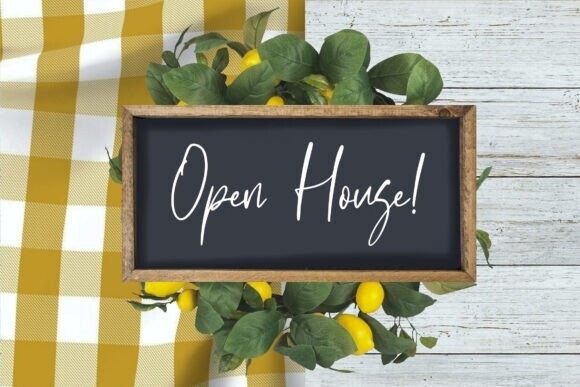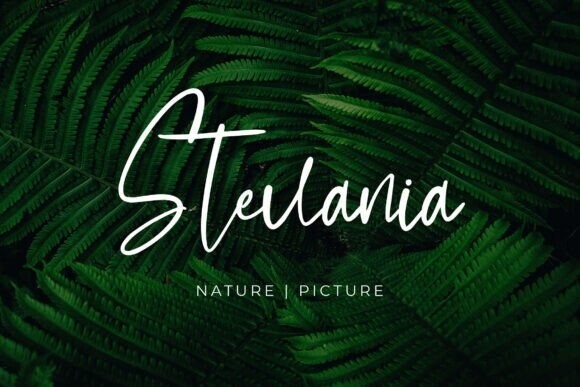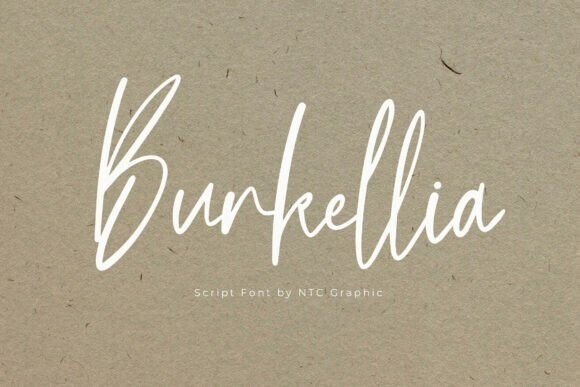
Burkellia Font
Burkellia Font is a beautiful script font with a natural handwriting style, designed to bring a personal and elegant touch to your projects. Its unique character shapes make Burkellia perfect for logos, branding, invitations, and more. This font enhances the visual appeal of your designs, giving them a stylish and authentic look.